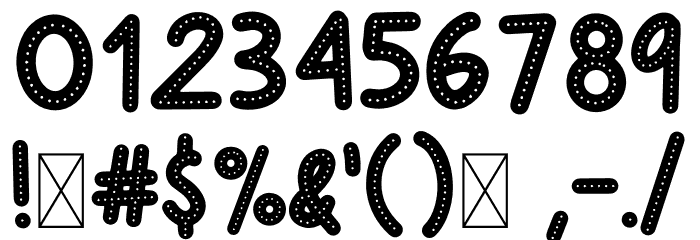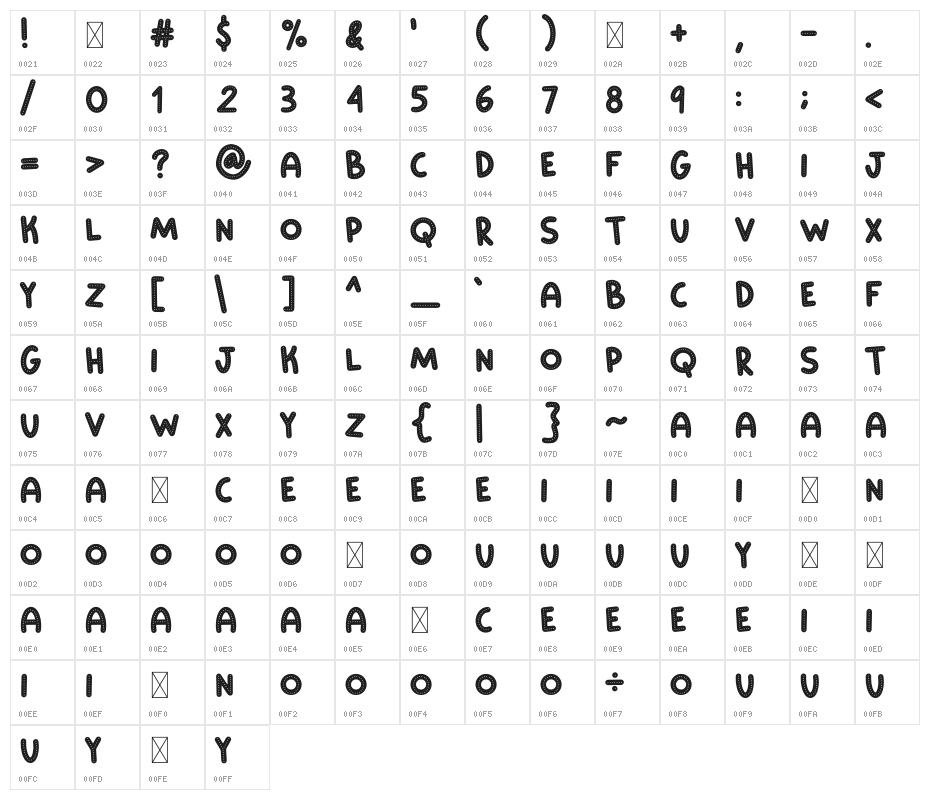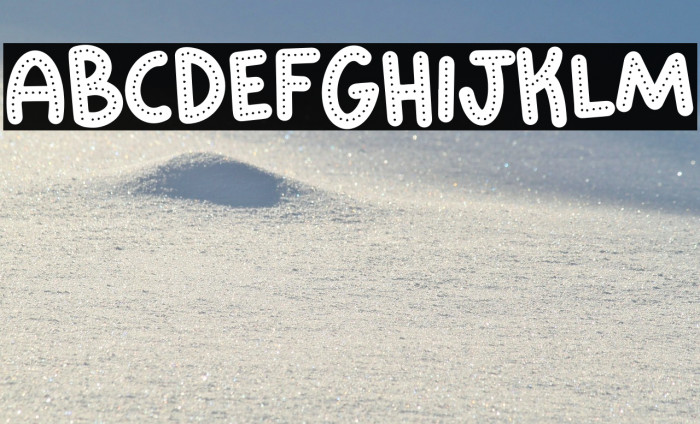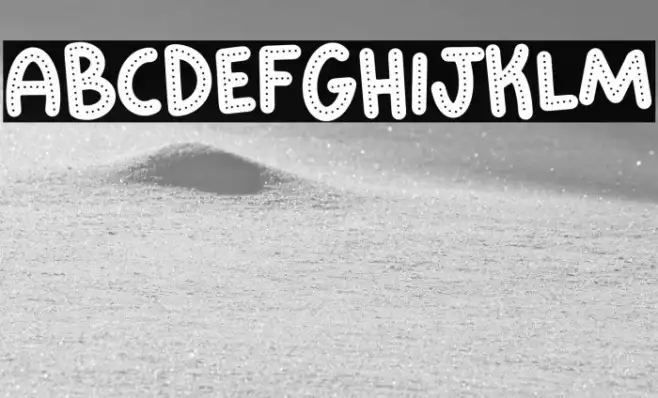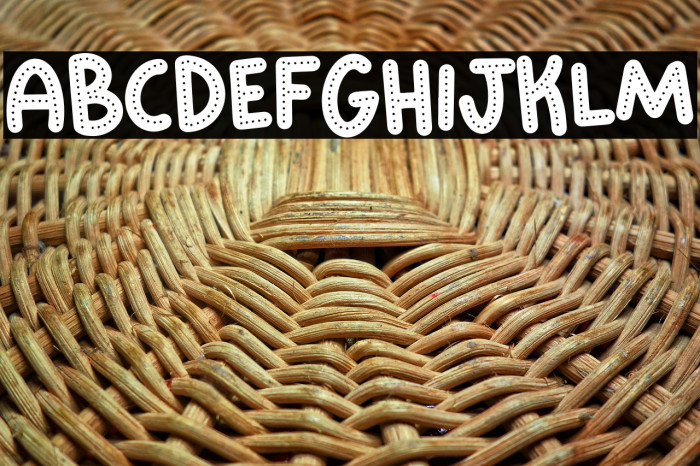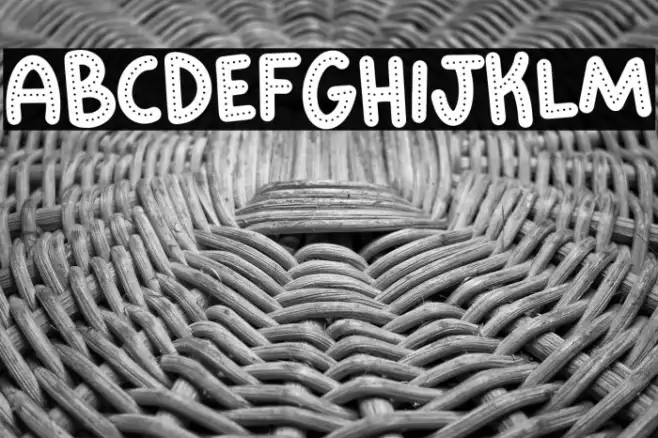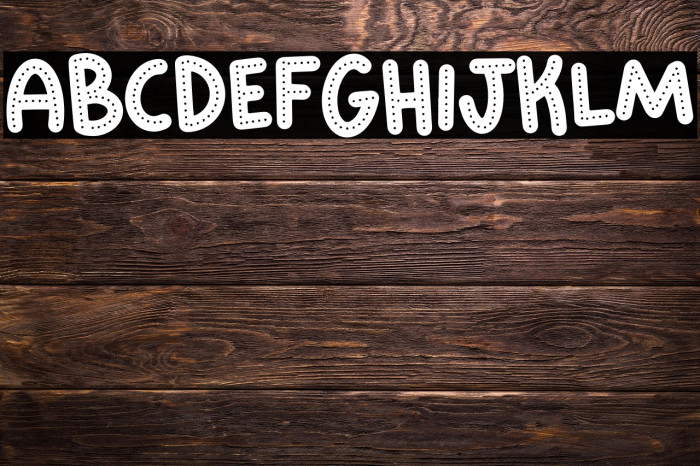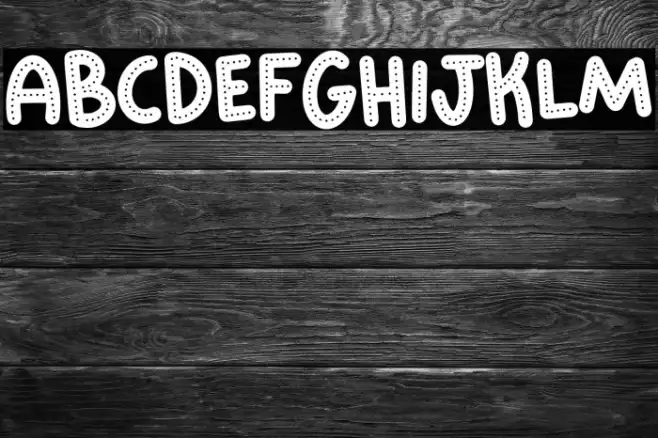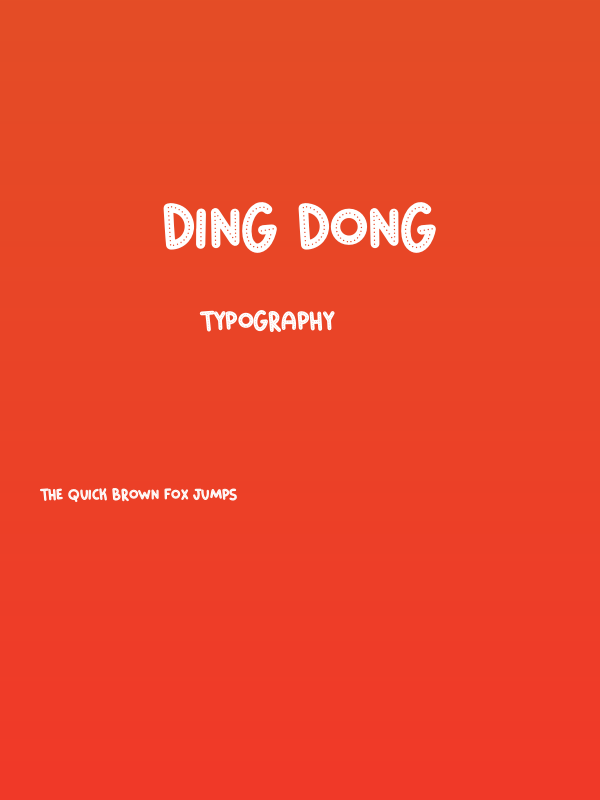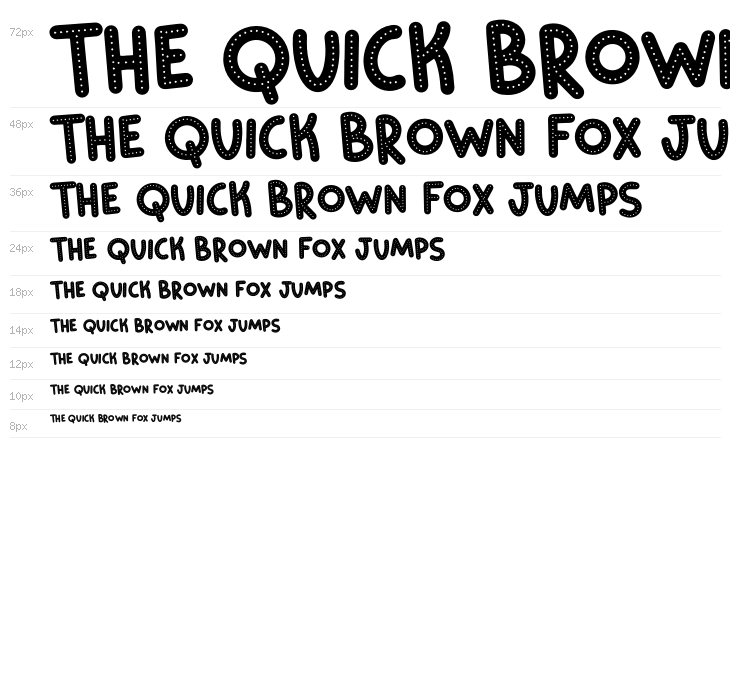
Ding Dong Font
Ding Dong Description
This playful and whimsical font features bold, rounded characters with a dotted outline that adds a fun and lively touch. The letters are uniformly thick, creating a consistent and cohesive look across both uppercase and lowercase alphabets. The numbers and special characters maintain the same playful style, making it suitable for projects that require a cheerful and engaging appearance. The font's design is reminiscent of marquee lights or carnival signage, adding a sense of nostalgia and excitement. Its boldness ensures readability while the dotted outline provides a unique decorative element.
| Proposed Projects | Ideal for children's books, party invitations, playful branding, and festive posters. |